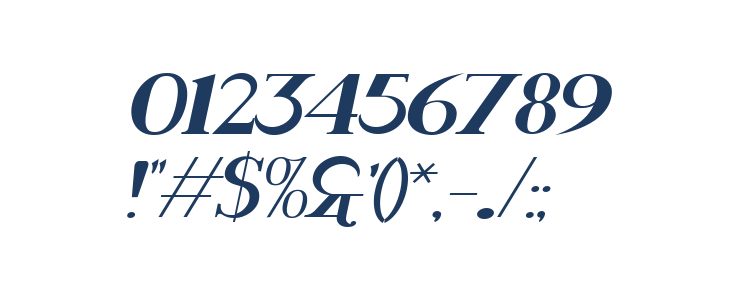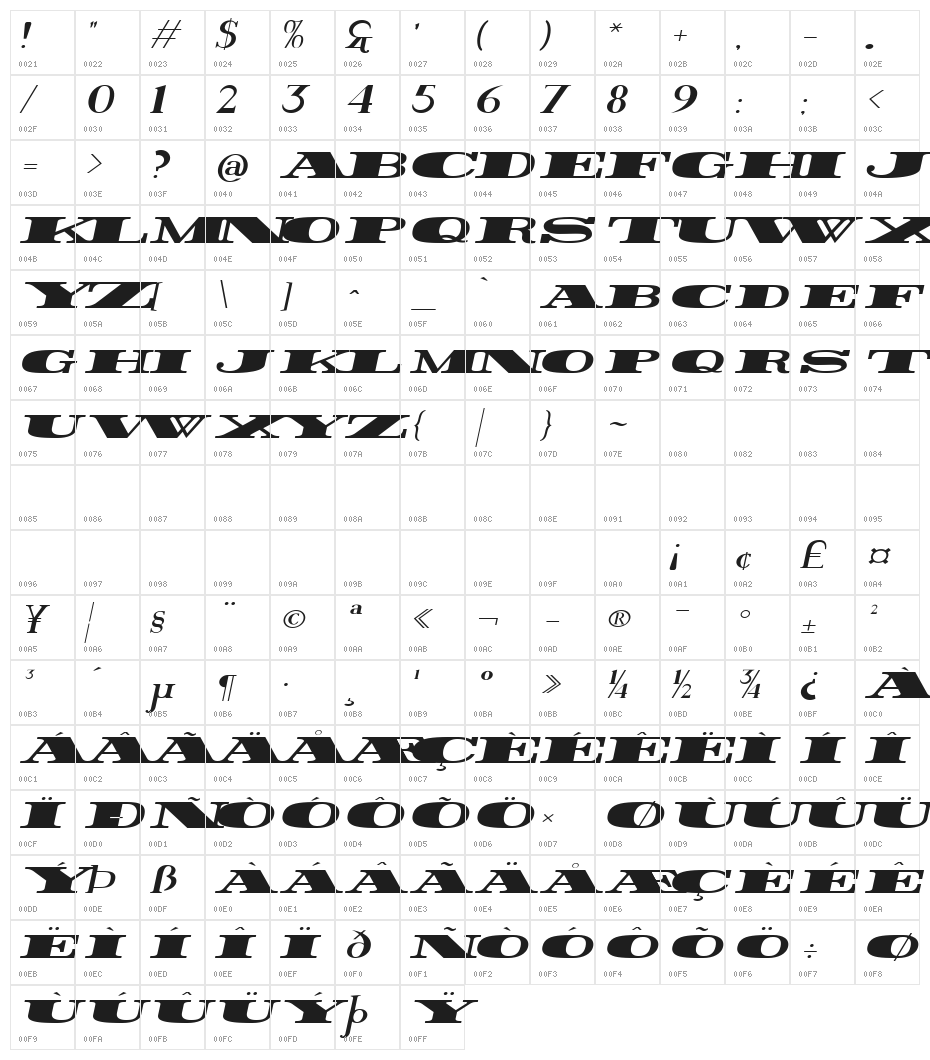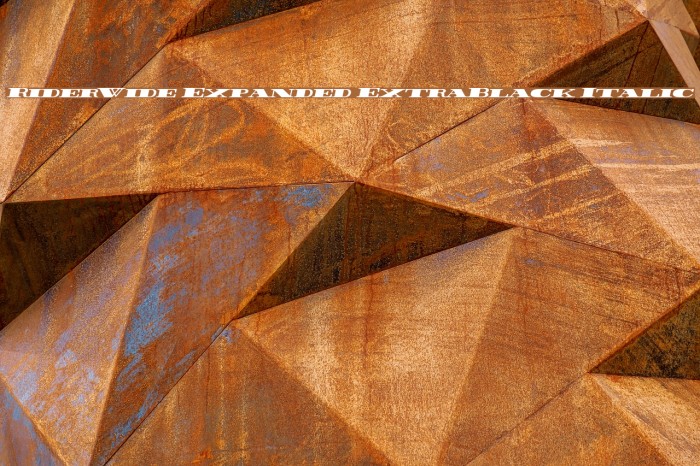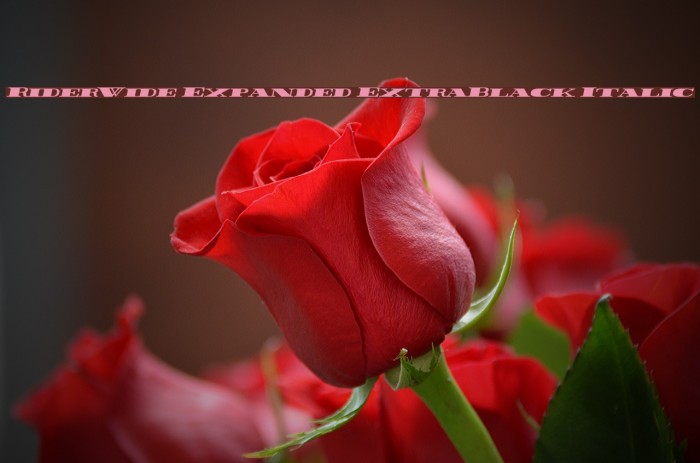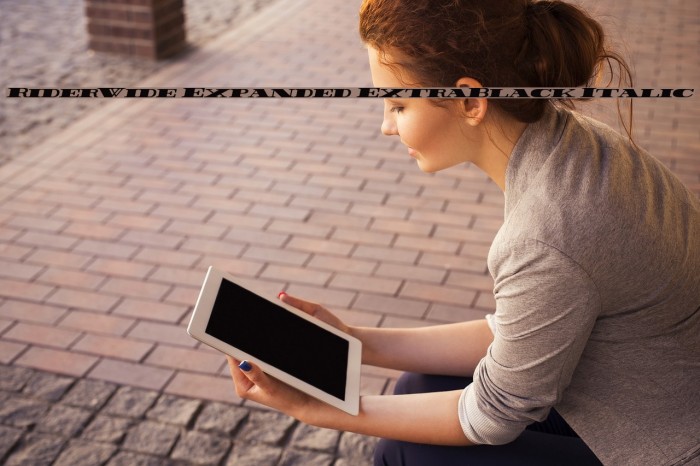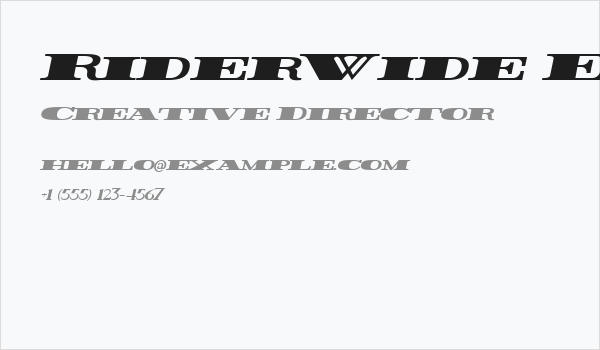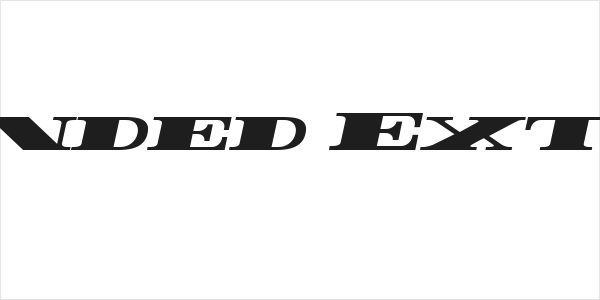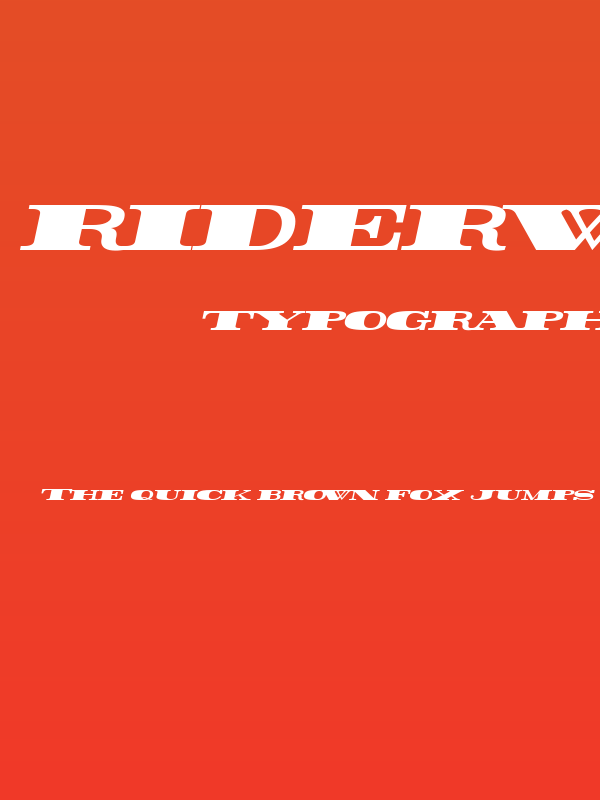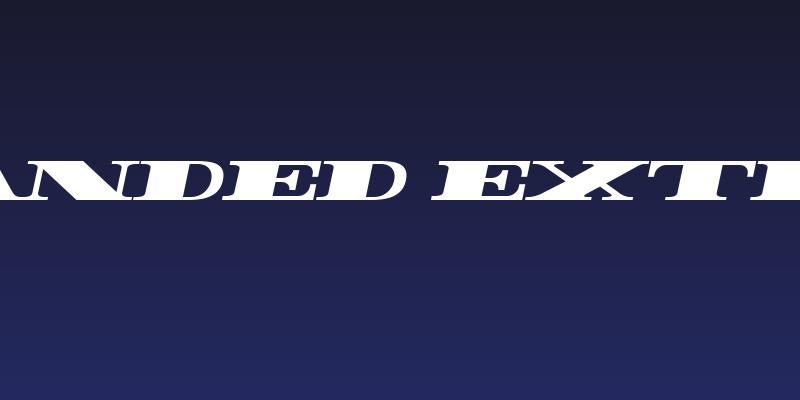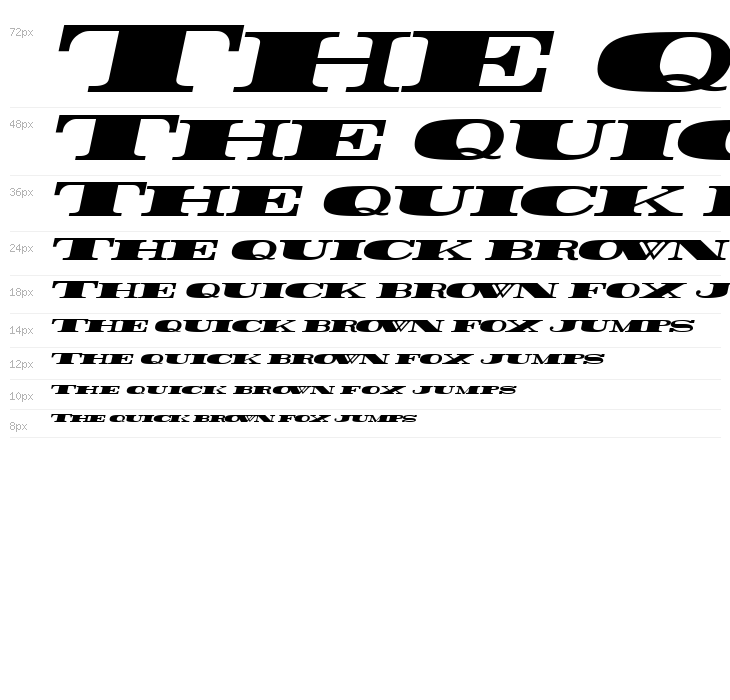
Rider Wide Expanded ExtraBlack Italic Font
Rider Wide Expanded ExtraBlack Italic Description
This font exhibits a bold and dynamic presence with its wide and expanded letterforms. The extra black weight provides a strong visual impact, making it ideal for attention-grabbing designs. The italic style adds a sense of movement and elegance, enhancing its overall appeal. The characters are well-defined with sharp edges and a high contrast between thick and thin strokes, contributing to its modern and assertive look. The spacing between characters is slightly tight, which helps maintain a cohesive appearance across text. This font is particularly suited for projects that require a bold statement, such as headlines, posters, and branding materials.
| Proposed Projects | Ideal for headlines, posters, branding, and any design requiring a bold statement. |